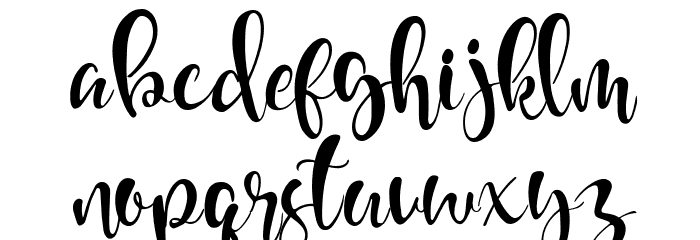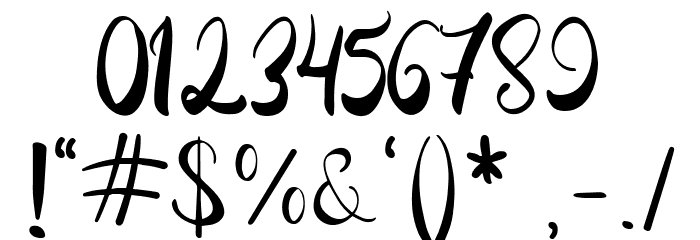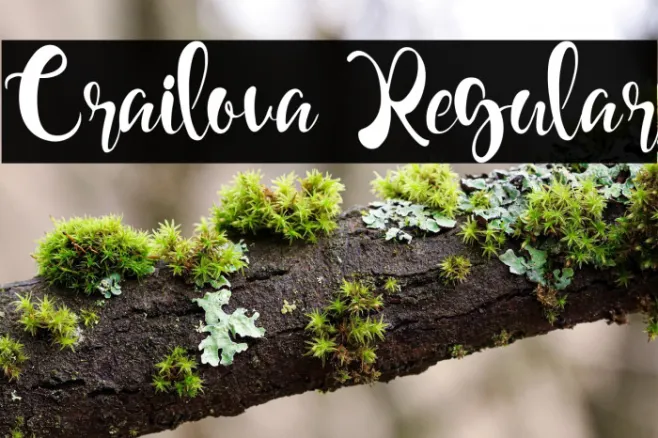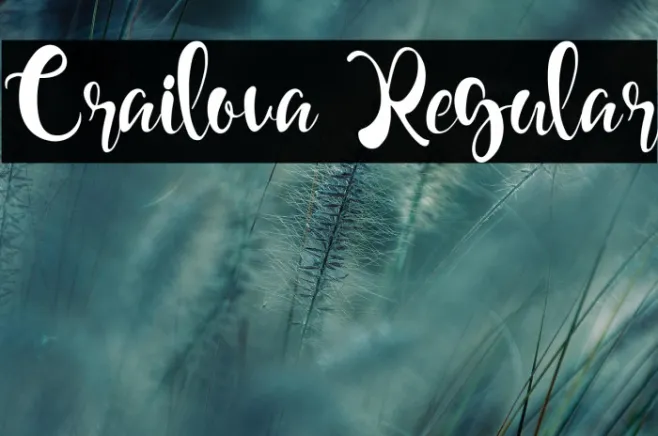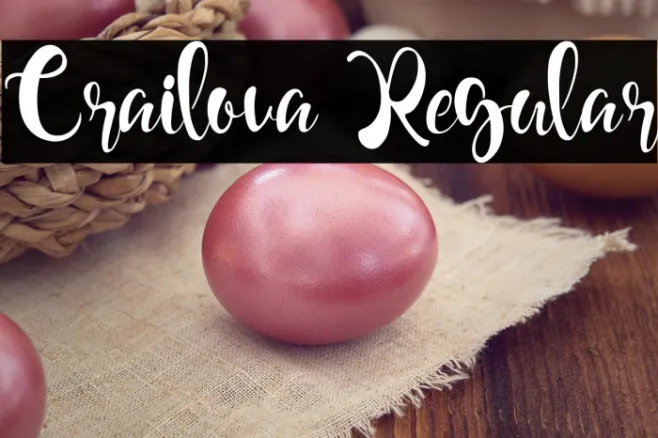
Crailova Regular Font
This font exhibits a flowing, cursive style with a strong emphasis on elegant, sweeping curves and loops. The characters are interconnected, creating a seamless and fluid appearance. The uppercase letters are bold and prominent, while the lowercase letters maintain a consistent, graceful form. The numerals and special characters follow the same stylistic approach, ensuring uniformity across all elements. The overall design is both artistic and sophisticated, making it suitable for decorative purposes.
A flowing, cursive font with elegant curves and interconnected characters.
- Font: Crailova Regular
- Proposed Projects: Ideal for wedding invitations, greeting cards, branding, and decorative headlines.
- Character Spacing: Tight
- Use Case: Logos, Headlines, Invitations